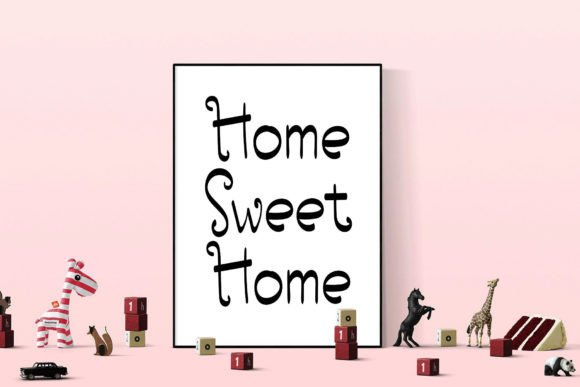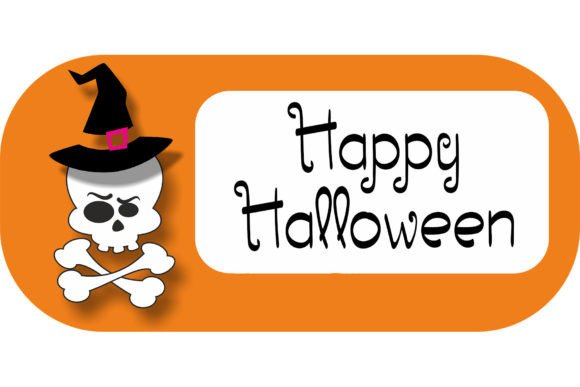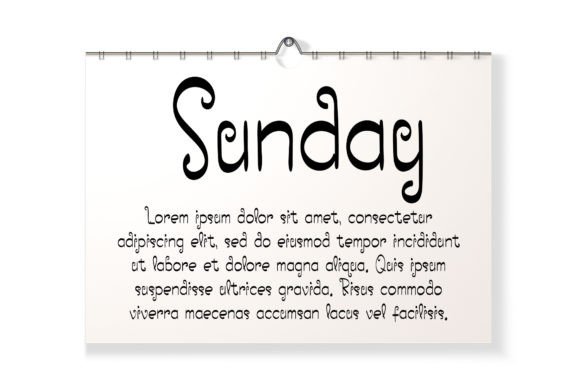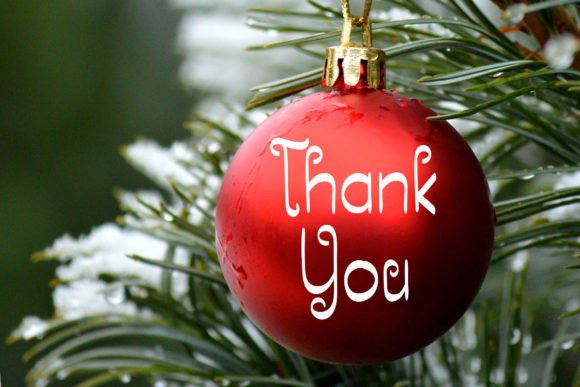
The Perfect Font for a Summer of Creativity
As I sat in my backyard on a warm summer morning, sipping my coffee and watching the sun rise, I felt a surge of inspiration hit me. I wanted to create something beautiful, something that captured the essence of the season. And that’s when I stumbled upon the Happy Summer Font – a unique and elegant font that would become the perfect accompaniment to my summer of creativity.
The Happy Summer Font is more than just a font – it’s a tool for designers to bring their ideas to life. With its varied baseline and natural, hand-made touch, it’s perfect for adding a personal touch to wedding invitations, greeting cards, billboards, logos, business cards, and any other design that requires a handwritten feel. Whether you’re a seasoned designer or just starting out, this font is a valuable addition to your toolkit.
Key Features of Happy Summer Font
- Unique Characteristics: Happy Summer Font features a playful, cursive script with a summer-inspired aesthetic, complete with swashes and flourishes.
- Kerning and Ligatures: The font includes advanced kerning and ligature pairs, ensuring smooth text rendering and a professional appearance.
Designer Review: Happy Summer Font
Overall, I was excited to dive into the Happy Summer Font, but my experience was a mix of great and not-so-great. ✨ Here are some things that work well:
- The font’s playful and vibrant vibe perfectly captures the carefree feeling of summer.
- The letterforms are well-designed and easy to read, making it suitable for body text and titles.
- The font family includes a range of weights and styles, allowing for flexibility in your design.
- The Happy Summer Font is highly customizable, with options for adjusting color, size, and spacing.
- The font’s unique style may not be to everyone’s taste, and some users may find it too playful or juvenile.
- The font family could benefit from additional languages, making it more accessible to designers working with non-English content.
- The Happy Summer Font may not be suitable for formal or professional designs, as its playful vibe may clash with the tone.
Overall, I’d say the Happy Summer Font is a great choice for designers looking to add a touch of whimsy to their projects. While it may not be the best fit for every design, it’s a fun and versatile font that’s sure to bring a smile to your users’ faces.
Tips for Getting the Most Out of Happy Summer Font
Use Happy Summer Font to add a playful and festive touch to your designs.
Pair it with bright colors and fun graphics for a summer-themed look.